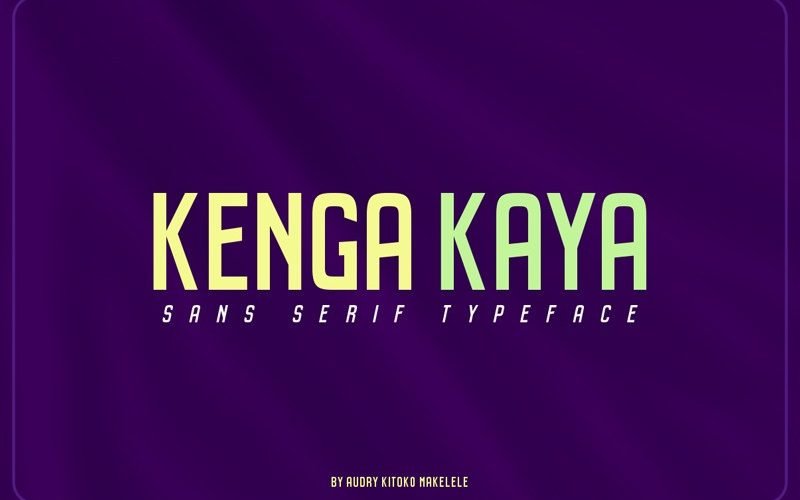
Kenga Kaya Sans Serif Font
Kenga Kaya is simple but significant, and defined by its crisp edges and modern touches. It is designed for optimal legibility.
An all caps sans-serif, Kenga Kaya makes a statement without making a scene.